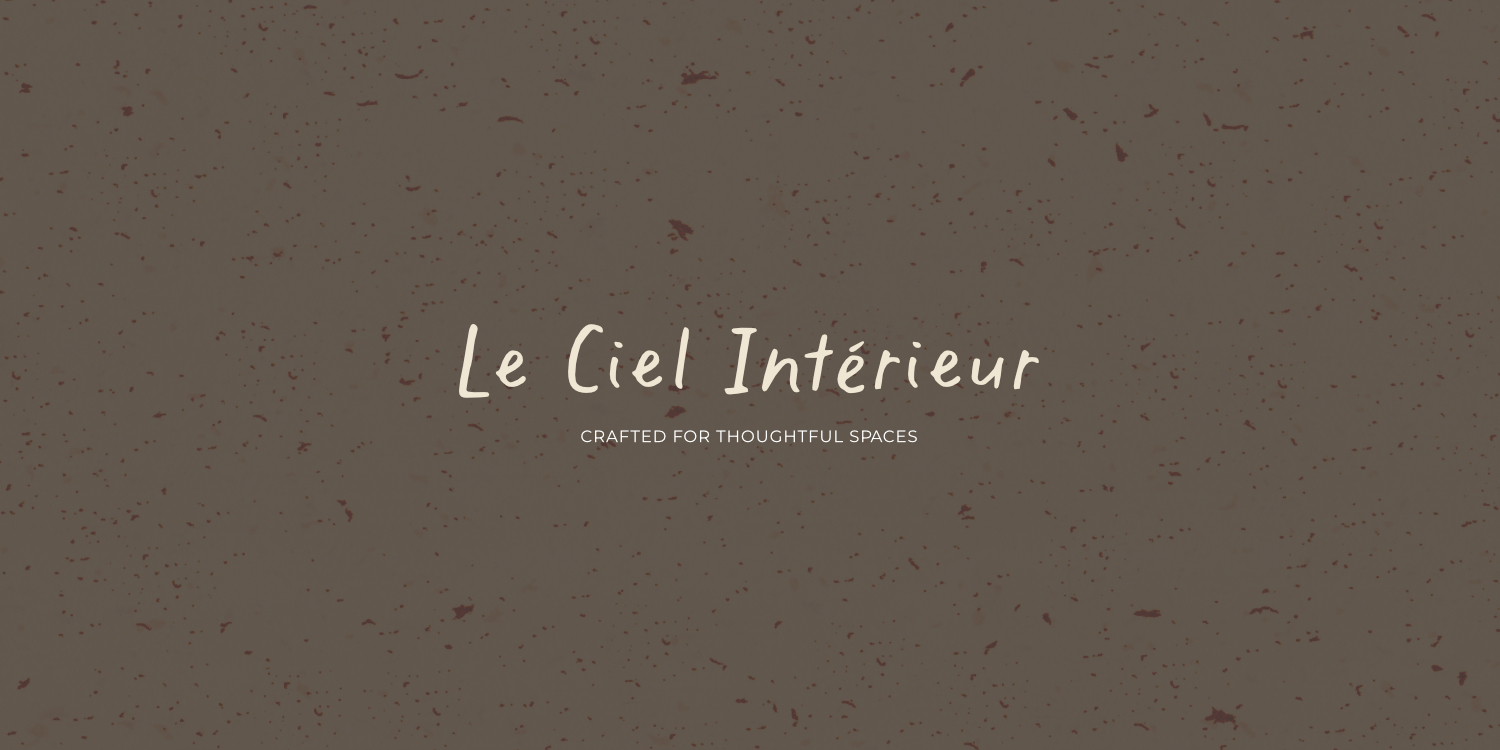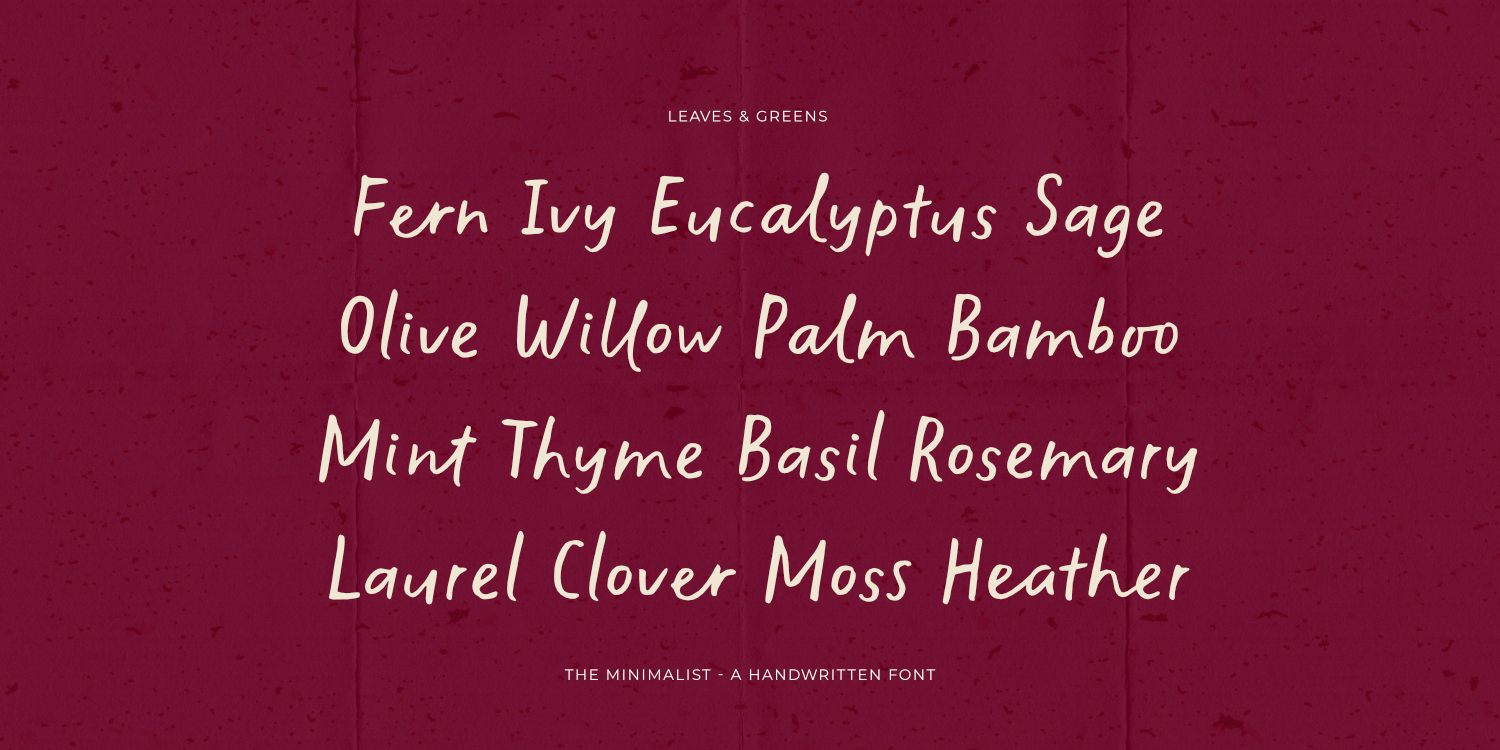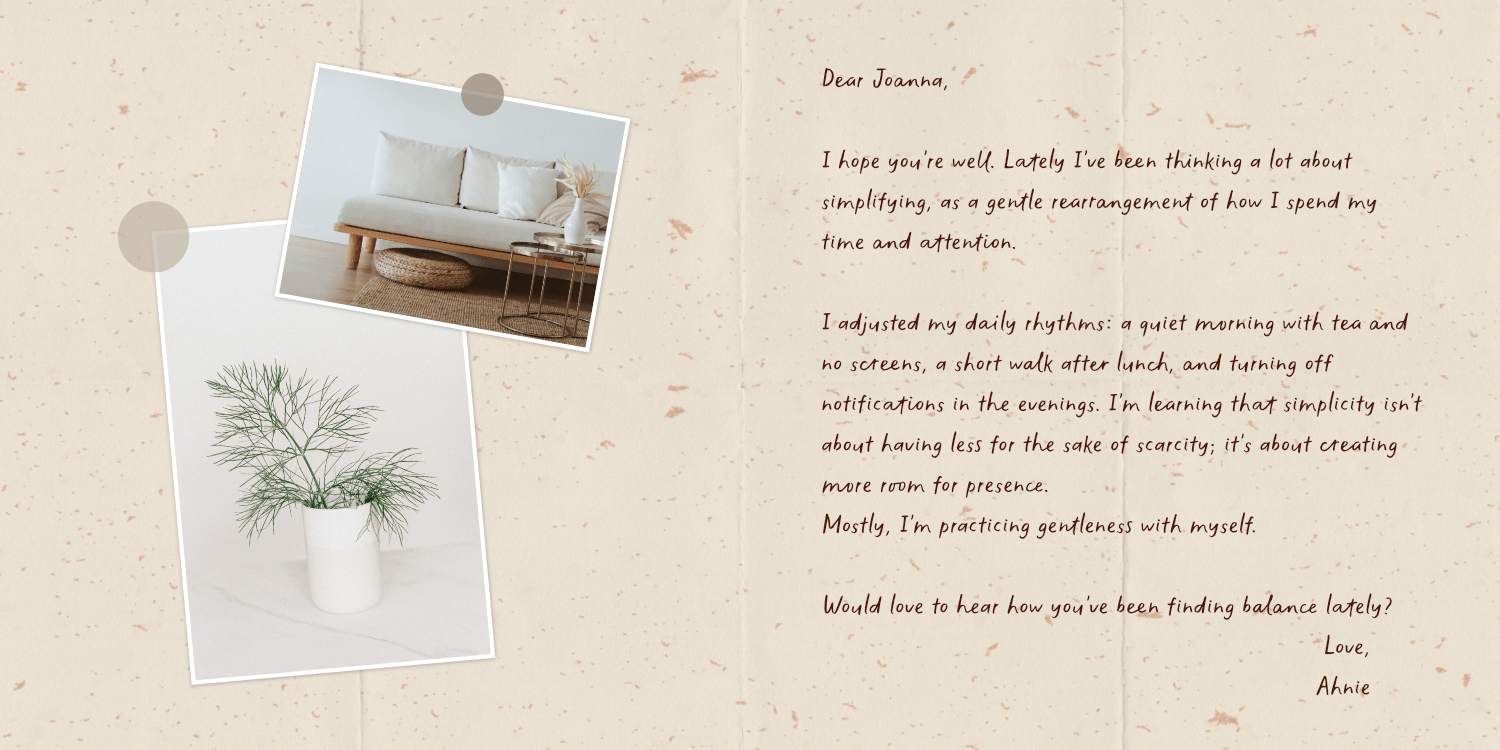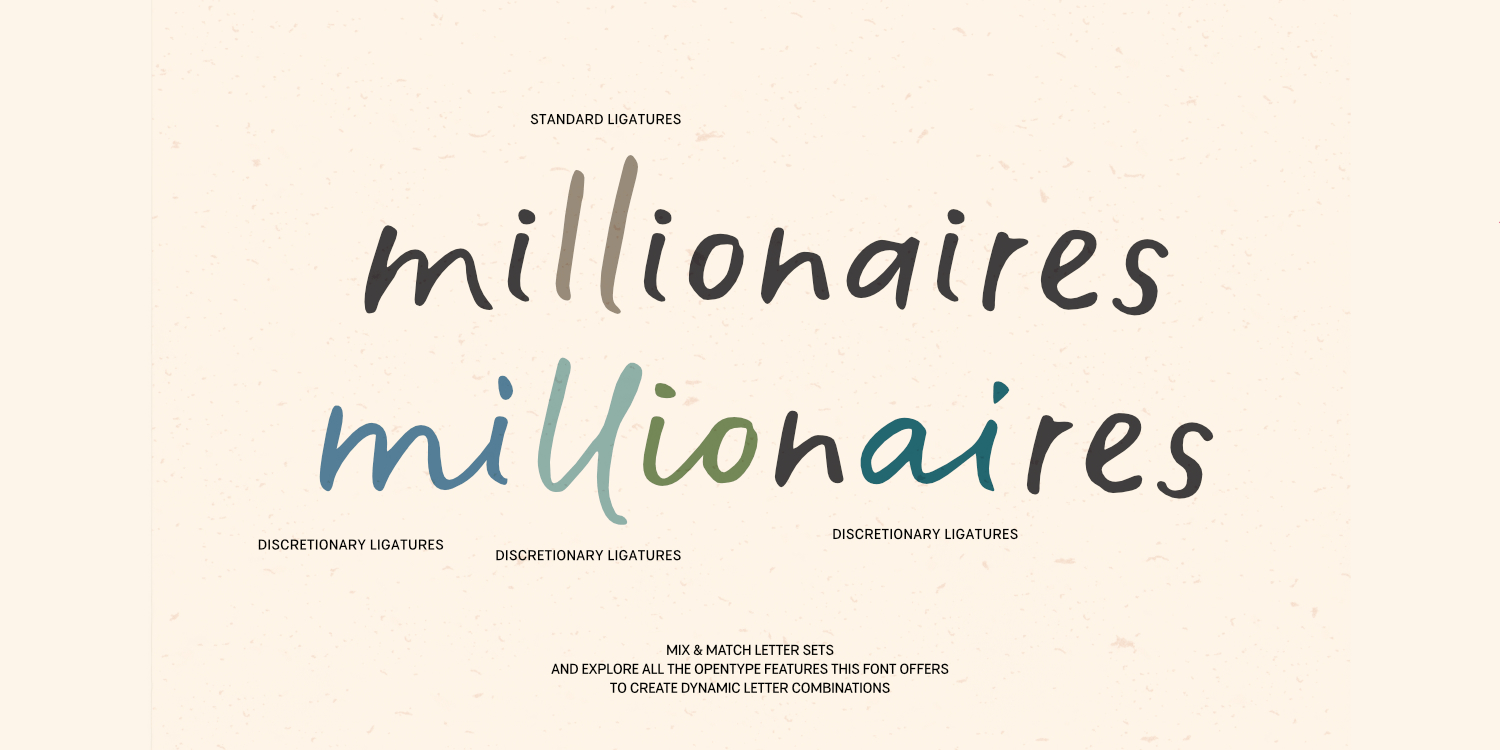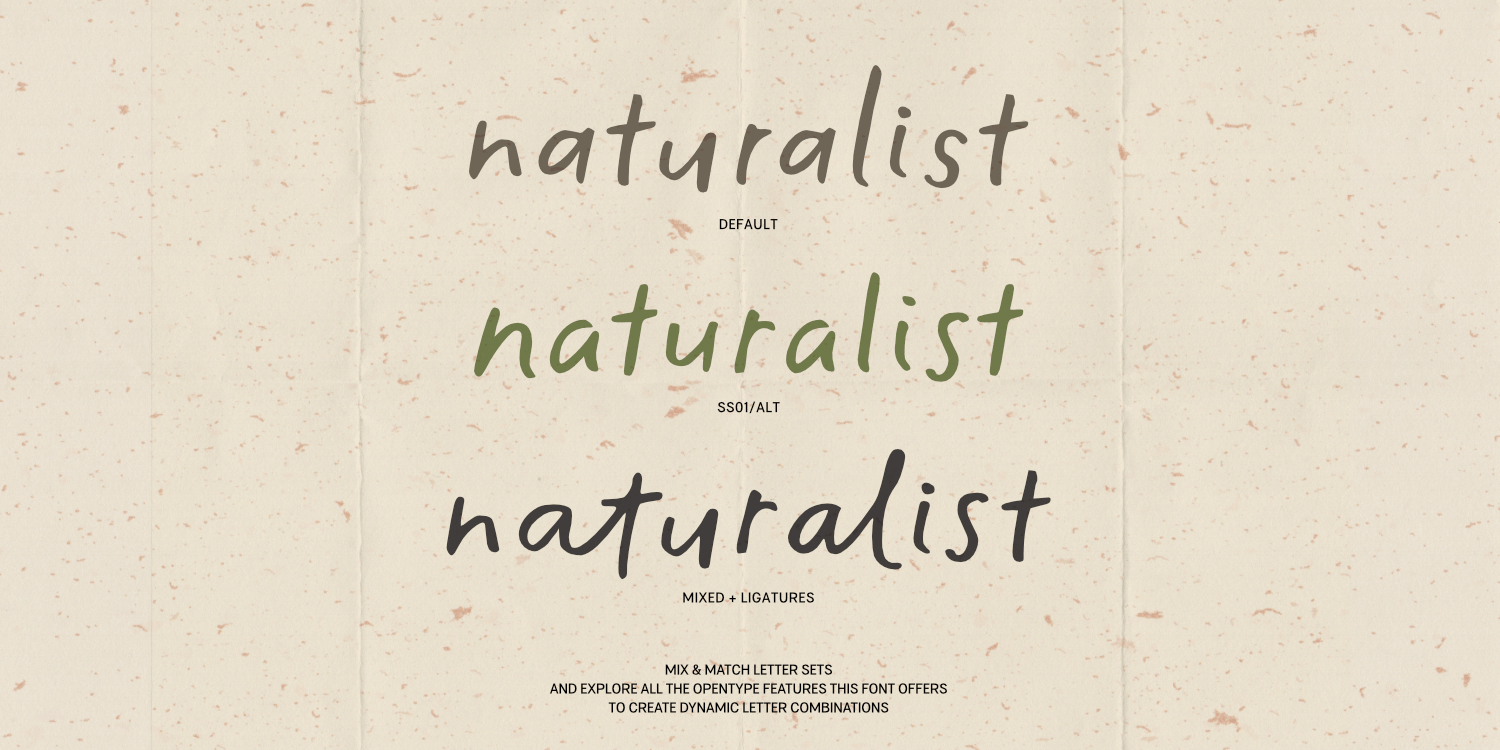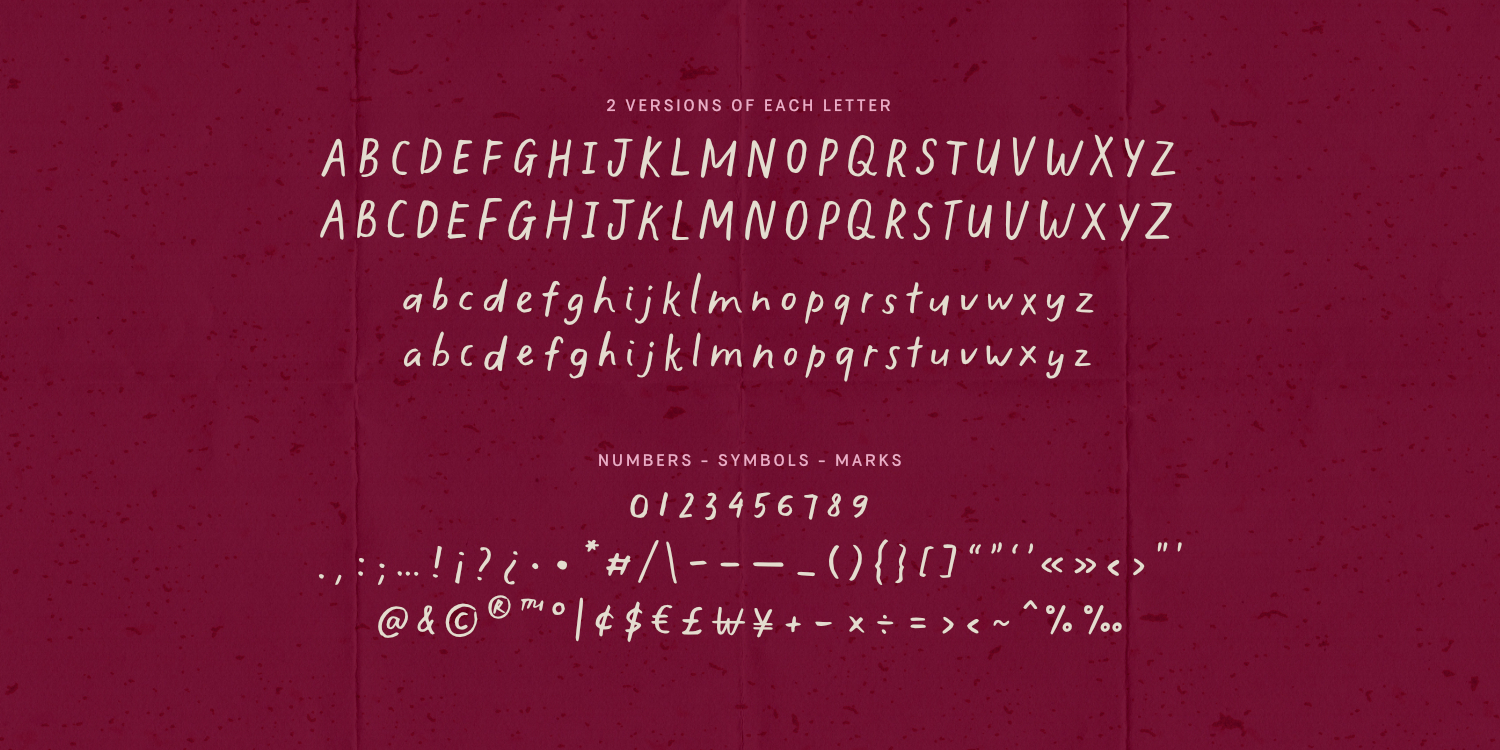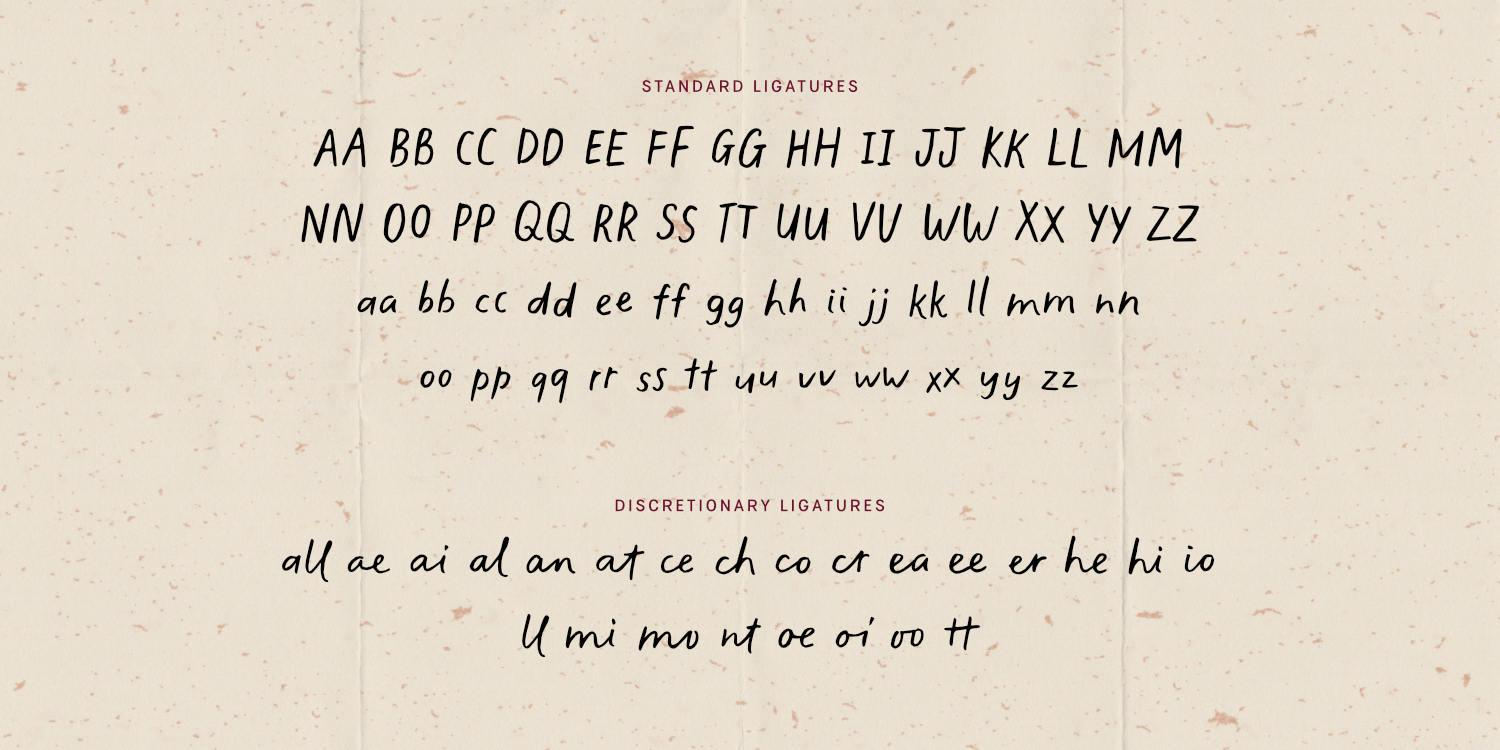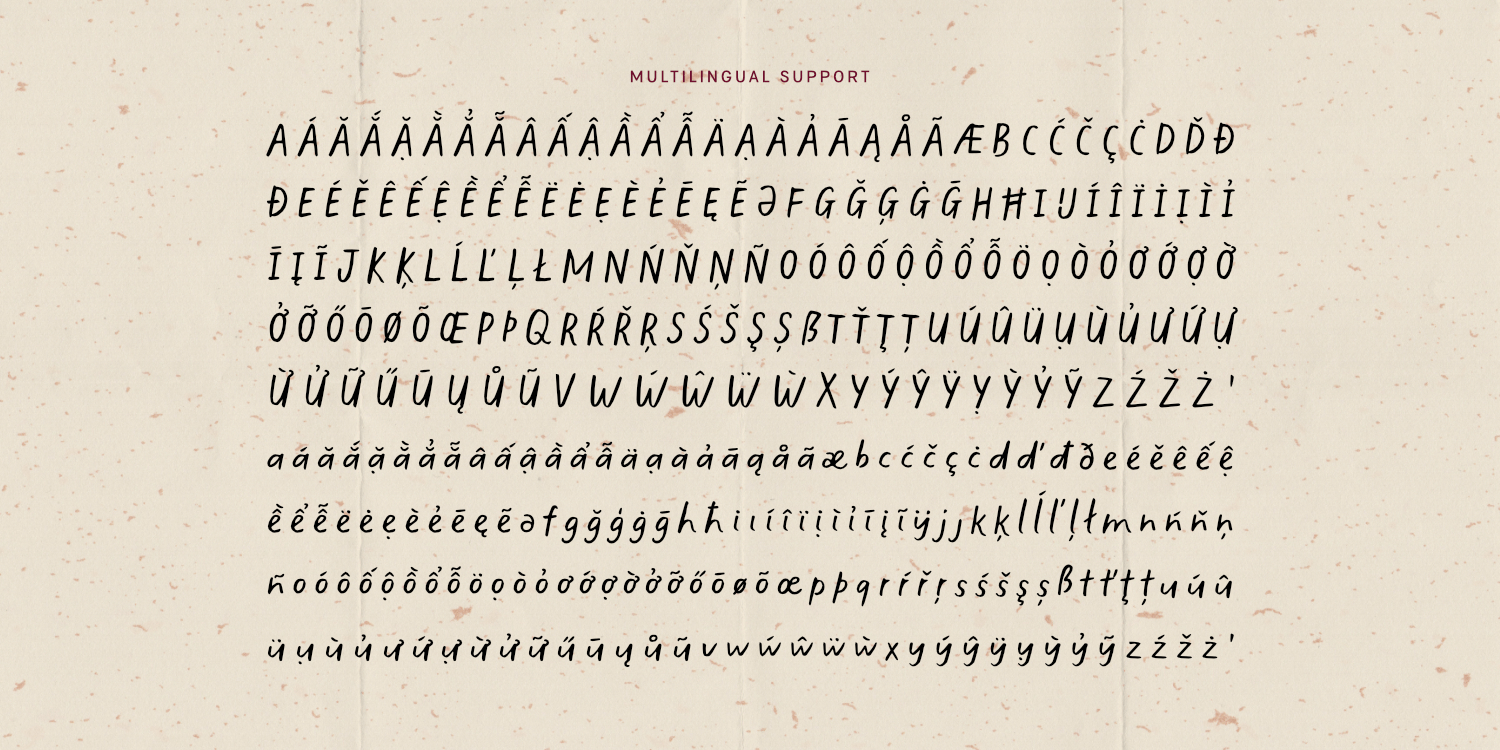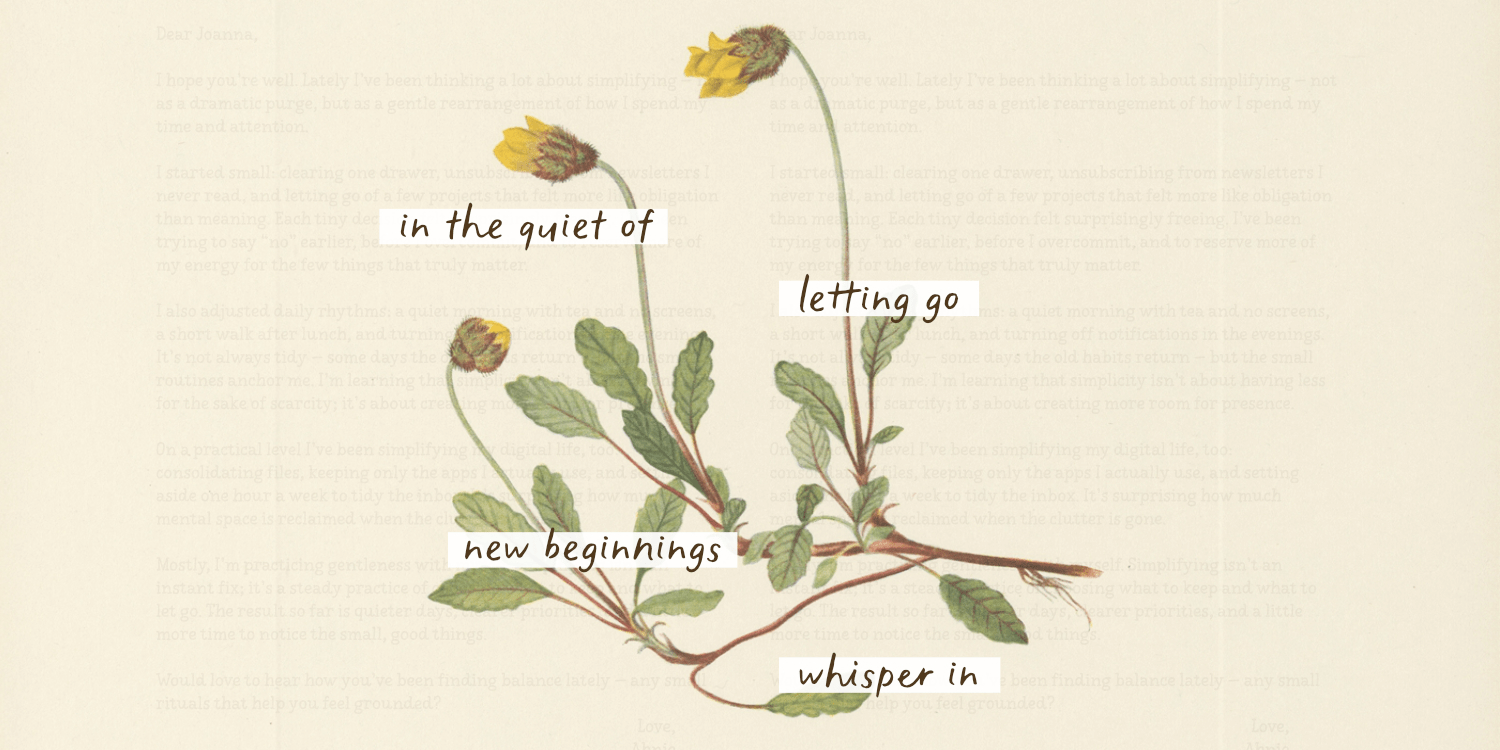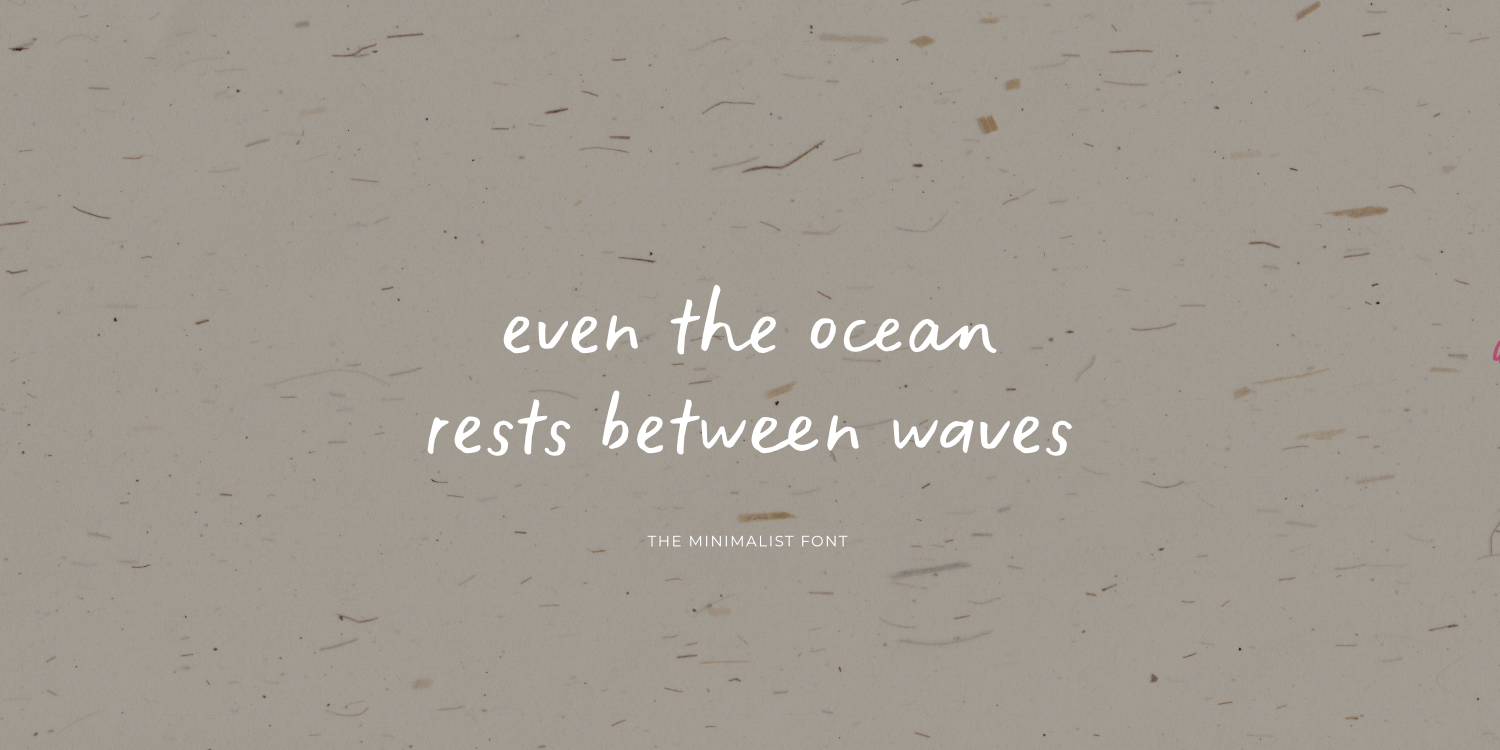
The Minimalist
The Minimalist is a natural handwritten typeface created with real brush pen strokes. Its organic texture and gentle flow capture the authenticity of hand lettering, bringing a sense of warmth and character to every word. With two variations of each letter and rich OpenType features, it offers natural rhythm and fluidity across your designs. Complete with multilingual support, The Minimalist is ideal for projects that seek a genuine, artistic, and effortlessly human touch.
Features:
• 2 fonts: Regular (default set) and Alt (ss01)
• 2 versions of each letter
• Numbers, marks and symbols
• Multilingual support - 700+ glyphs
• OpenType features: Standard Ligatures, Discretionary Ligatures, Stylistic Sets, Stylistic Alternates
The font automatically replaces two identical adjacent letters with an alternate version to create a more natural handwritten look. If this feature isn't applied automatically, enable the OTF Standard Ligatures option.
Mix & match letter sets and explore all the OpenType features this font offers to create dynamic letter combinations!
Script: Latin
Supported Languages: English, Western European, Central European, South Eastern European, Oceanian, Vietnamese, South American